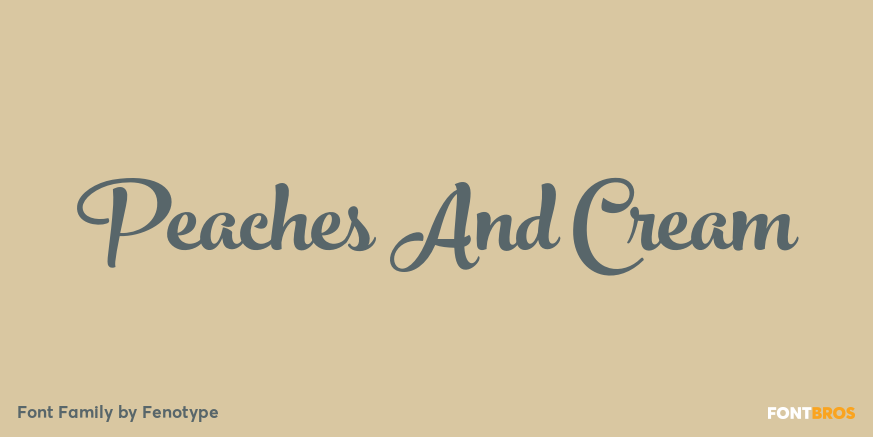
Peaches And Cream
Peaches and Cream is a bold brush style script family of three weights, ornament set and an all caps font. Peaches and Cream is equipped with plenty of OpenType features: To activate the alternates click on Swash, Stylistic or Titling Alternates in any…